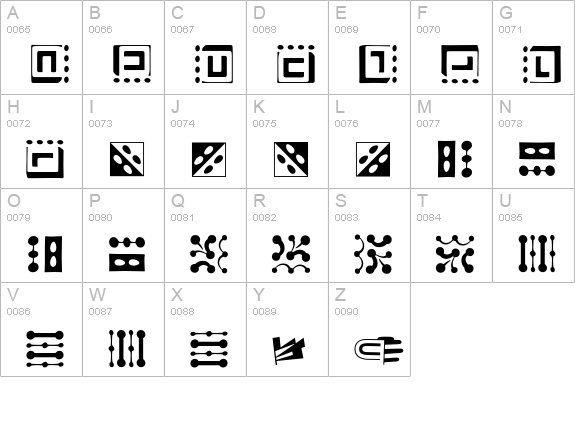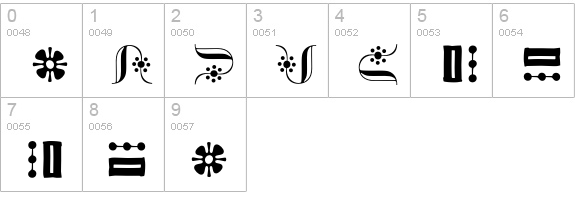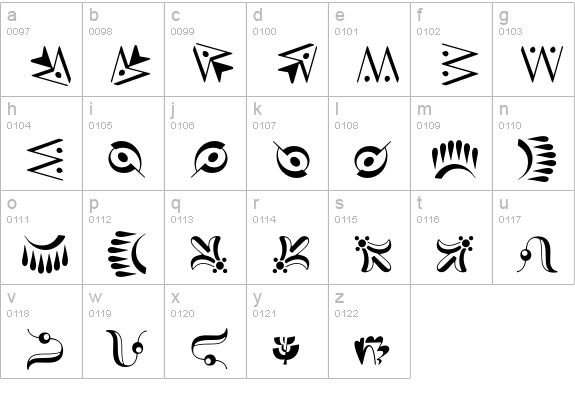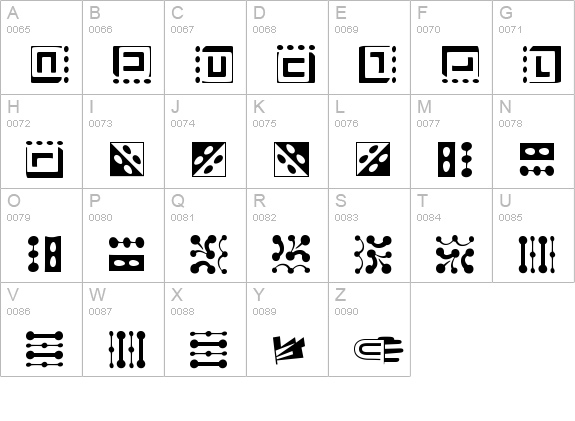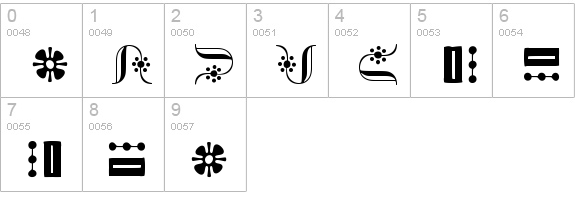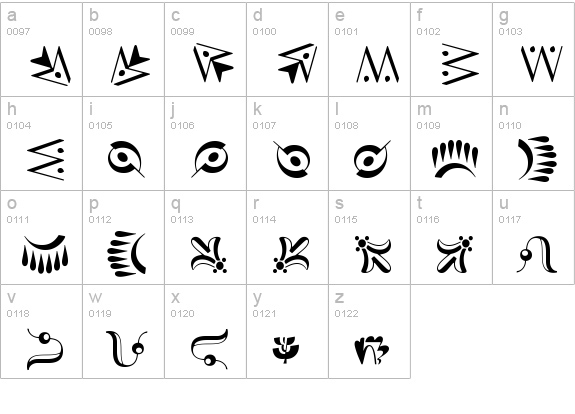
Caravan LH Three Font Details
Caravan LH Three is a modern and stylish font that exudes sophistication and elegance. With its sleek lines and contemporary design, this font is perfect for creating eye-catching titles, headings, and signage. The unique letterforms of Caravan LH Three give it a distinctive and memorable look that will make your designs stand out. The best part? Caravan LH Three is available for free download at FontsMarket.com. This means you can easily access this high-quality font and use it in your projects without any cost. Whether you're designing a website, creating marketing materials, or working on a personal project, Caravan LH Three is a versatile font that will elevate your work to the next level. Download it today and add a touch of sophistication to your designs with Caravan LH Three.